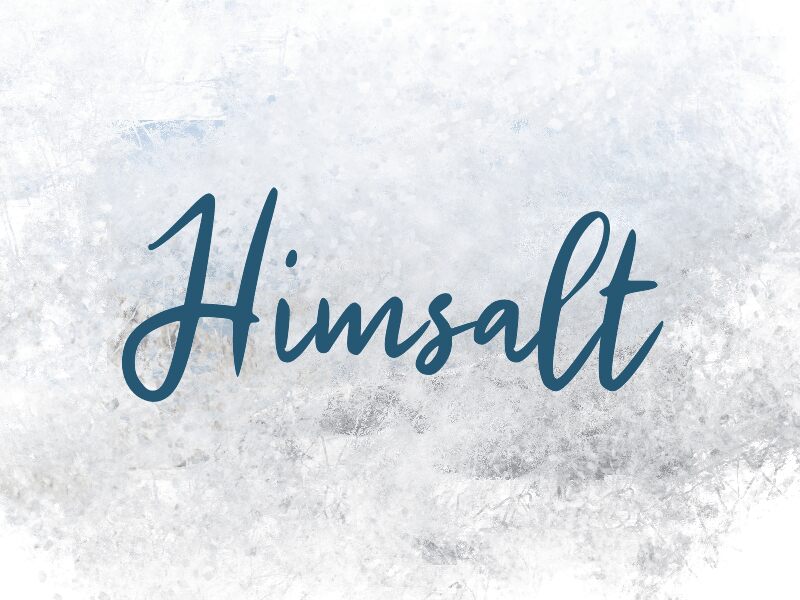
Himsalt font by wep is a free handwritten font characterized by its natural and subtle roundness. Himsalt is made to elevate your design instantly by giving it an authentic and warm feel. It includes a diverse set of letters found in most Latin-based languages allowing it to be used for multi-lingual projects. Some of the included Latin alphabet languages include Croatian, Czech, German, Turkish, Dutch, French, Romanian, Italian, Hungarian, Polish, and many more.
This font fits in endless visual projects, the most suitable of which are related to kids and children. Whether you want to design the cover of a children’s storybook, an educational app interface, or the branding of a cartoon TV show you will be happy with the results when using Himsalt. Other general themes and topics where the font fits the best are local stores, restaurants, care products, foods, and sweets among others.
Himsalt is a stylish and versatile free font that adds a unique touch to any design project. Whether you are creating a logo, poster, or website, this font is perfect for making your text stand out. The modern design and clean lines of Himsalt make it suitable for both personal and commercial use.